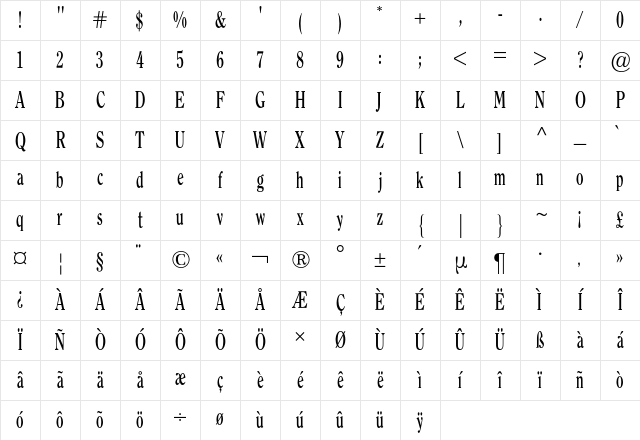
Clearface ATF BQ Regular Free Font
Clearface ATF BQ Regular
Complete Clearface ATF BQ Regular glyph index. Displaying only characters natively supported by Clearface ATF BQ Regular font.
Design Context for Clearface ATF BQ
Clearface ATF BQ is a composed and adaptable typeface that performs quietly and consistently across a wide range of design contexts.
Pro Tip: Use Clearface ATF BQ in both headline and body roles to test its range before committing to a single application.